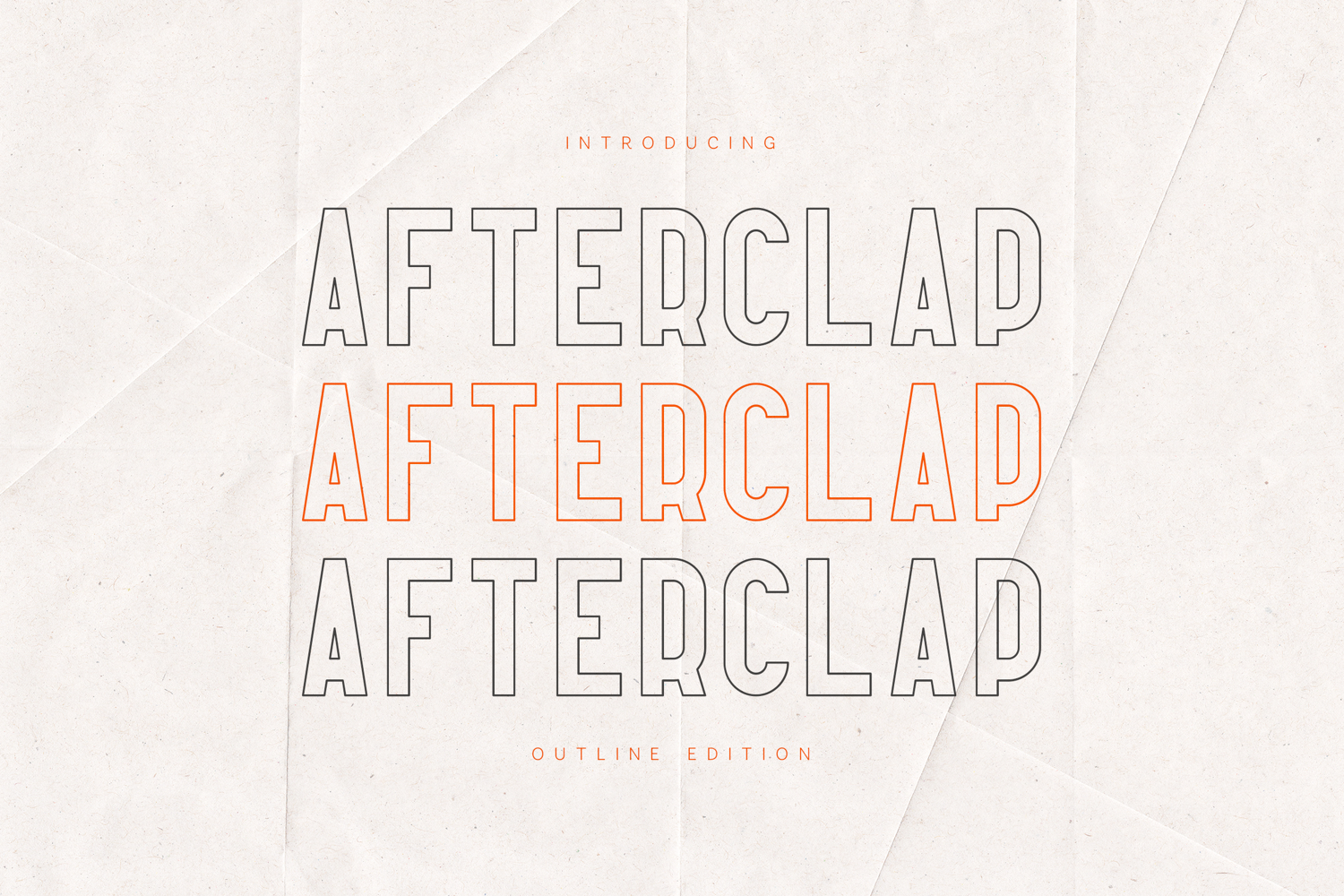
Afterclap Modern Outline Sans Serif Font
Afterclap is a bold and modern outline sans serif font designed for clean, impactful typography. Built with geometric precision and strong vertical structure, this typeface delivers a contemporary industrial feel while maintaining excellent readability.
Perfect for headlines, posters, branding, logos, editorial layouts, packaging, streetwear designs, and digital graphics. Its clean outlined construction makes it especially powerful for layered typography, minimal compositions, and modern branding systems.
- Clean Outline Style
This font works beautifully for both large display settings and structured typographic layouts. Ideal for creatives working on bold branding concepts, modern merchandise, album covers, fashion editorials, and contemporary visual identities.